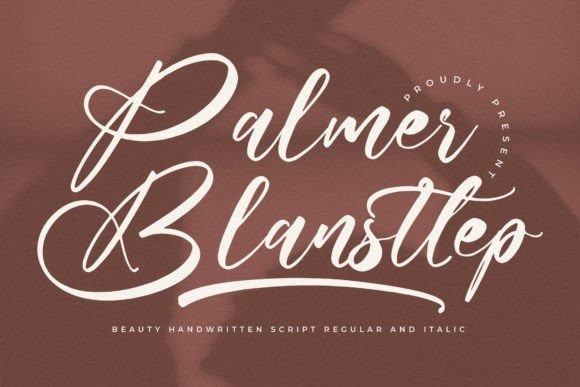
Palmer Blansttep Font
Palmer Blansttep Font – Beauty Handwritten Script , from Glorytype Studio, suitable for any projects such as: logos, branding projects, homeware designs, product packaging, mugs, quotes, posters, shopping bags, t-shirts, book covers, name card, invitation cards, greeting cards, label, photography, watermark, special events, and all your other lovely projects that need a beautiful script taste.